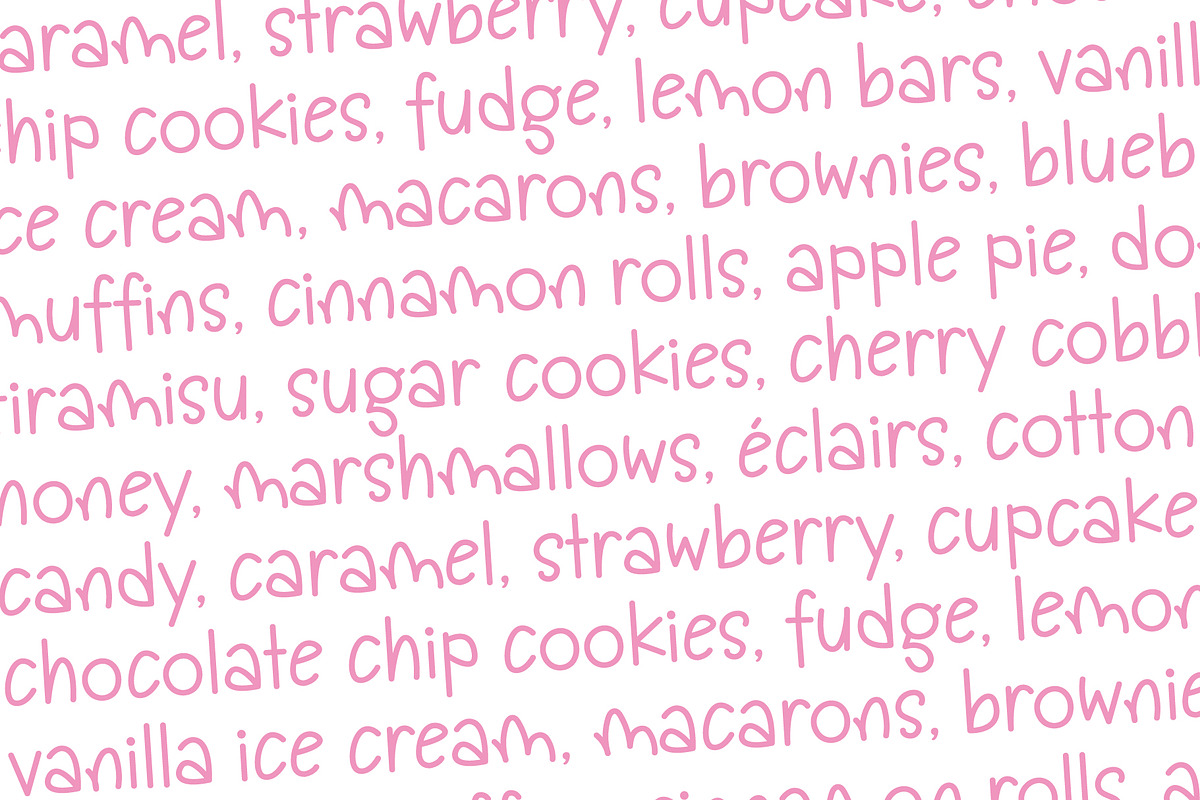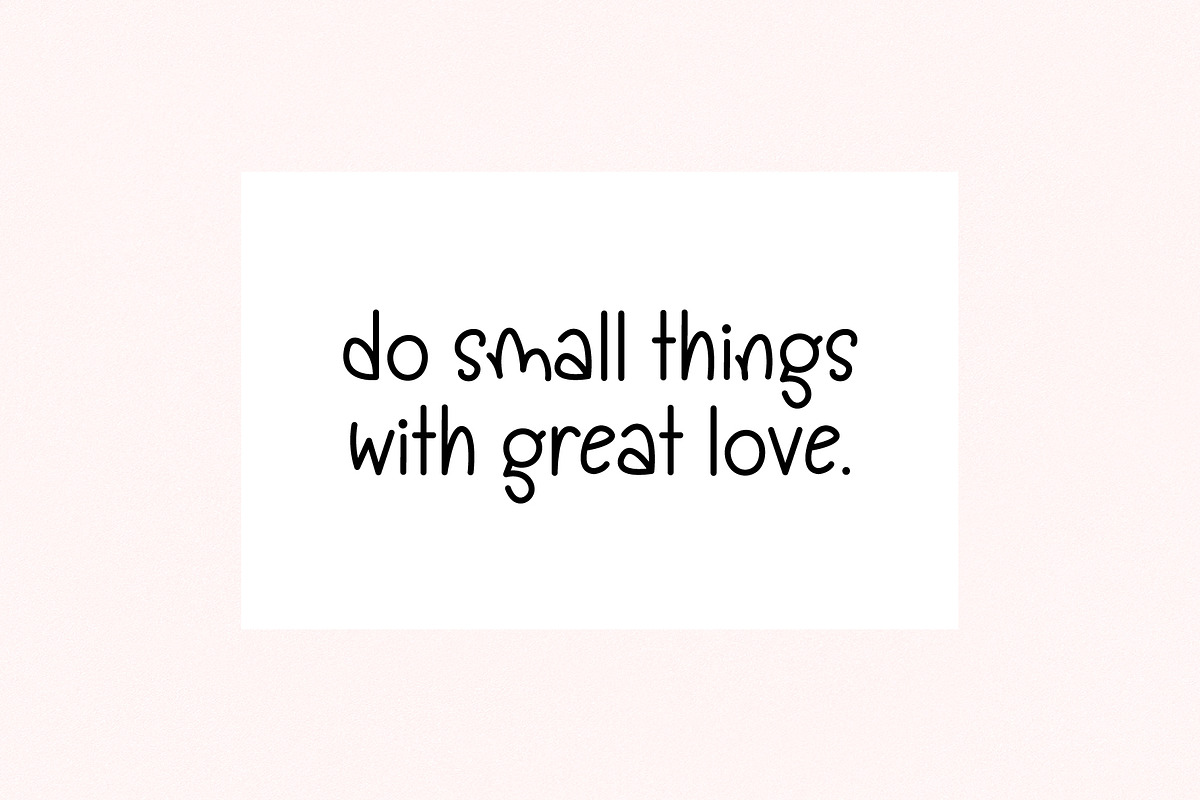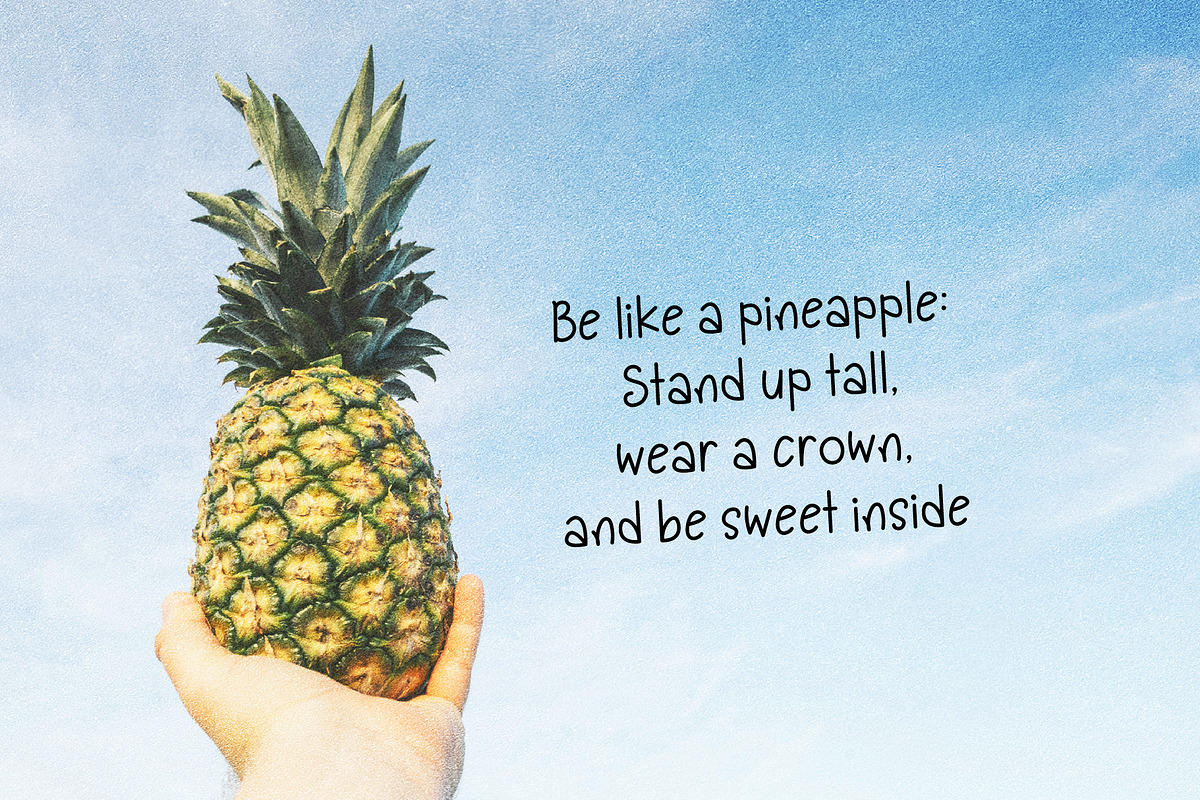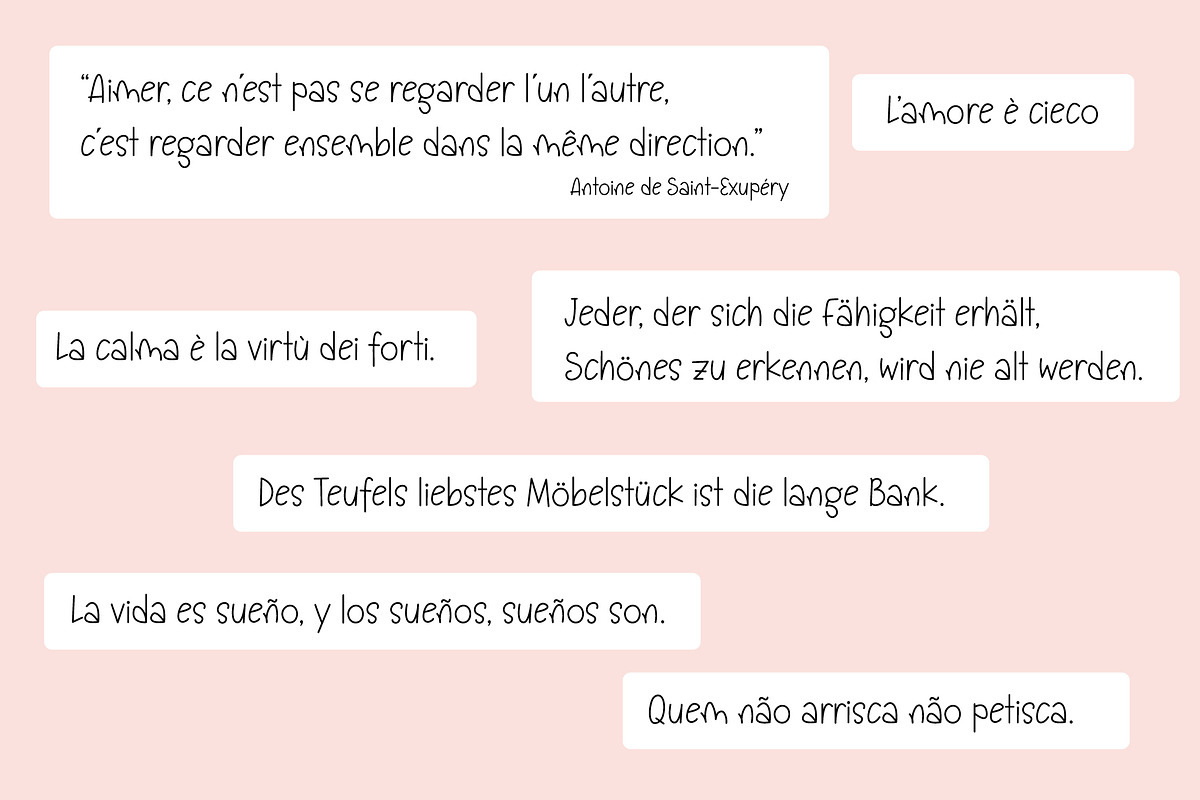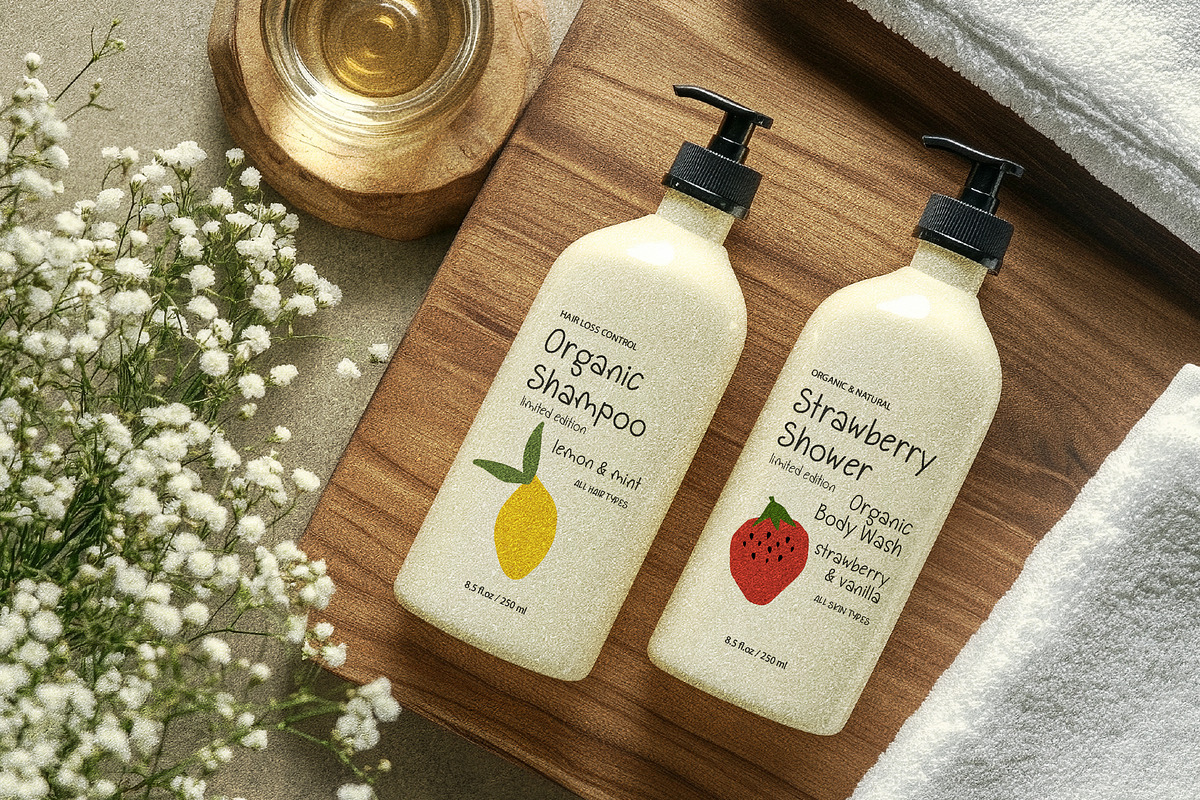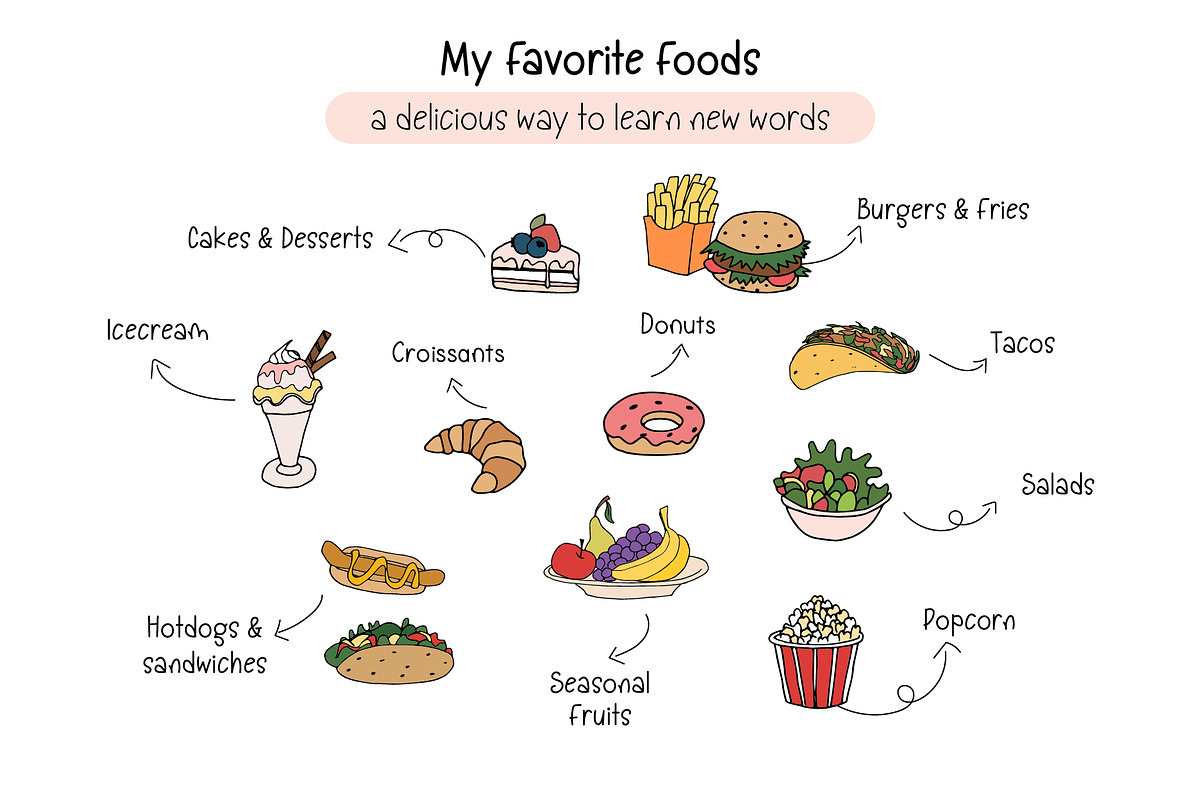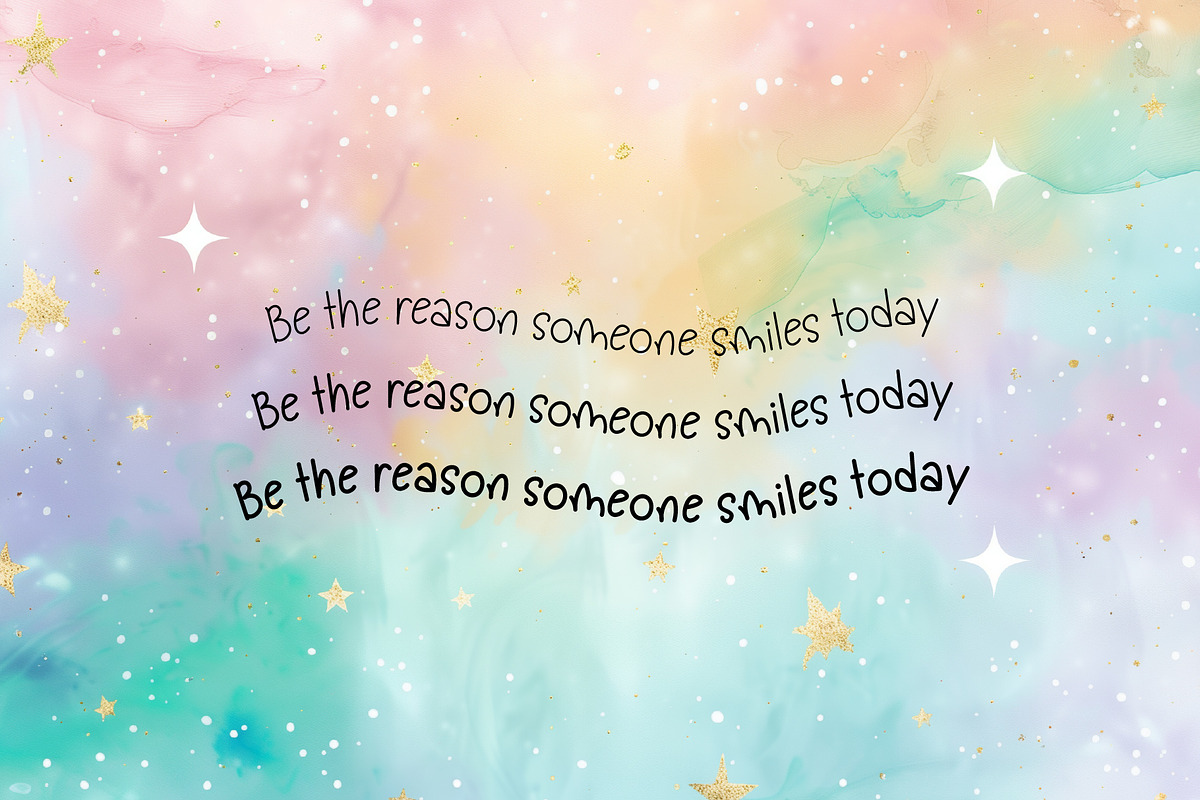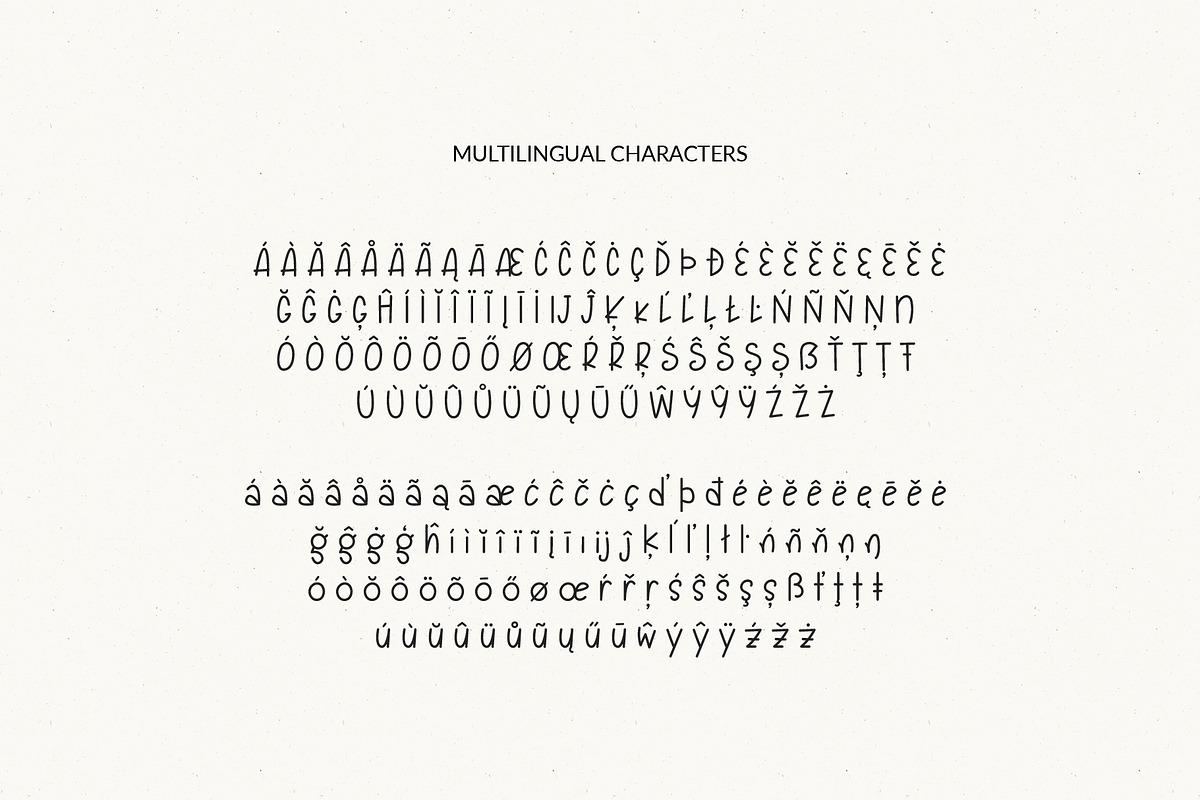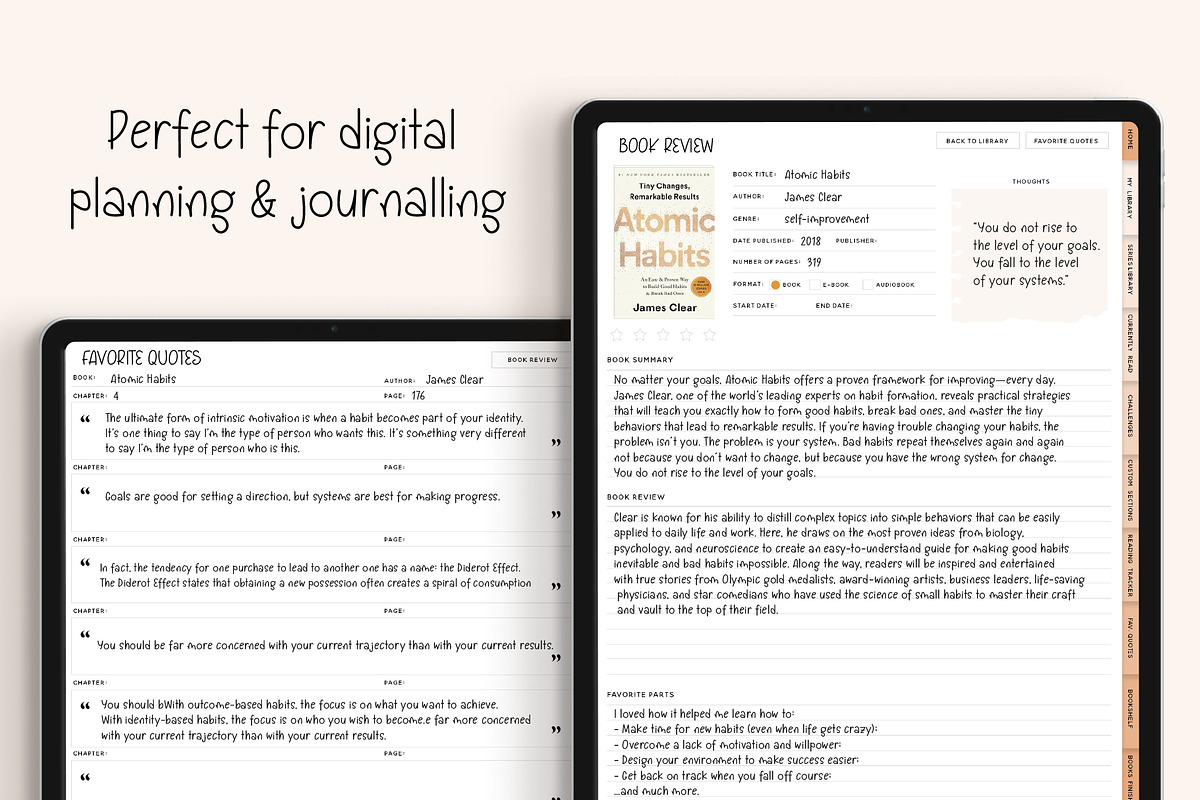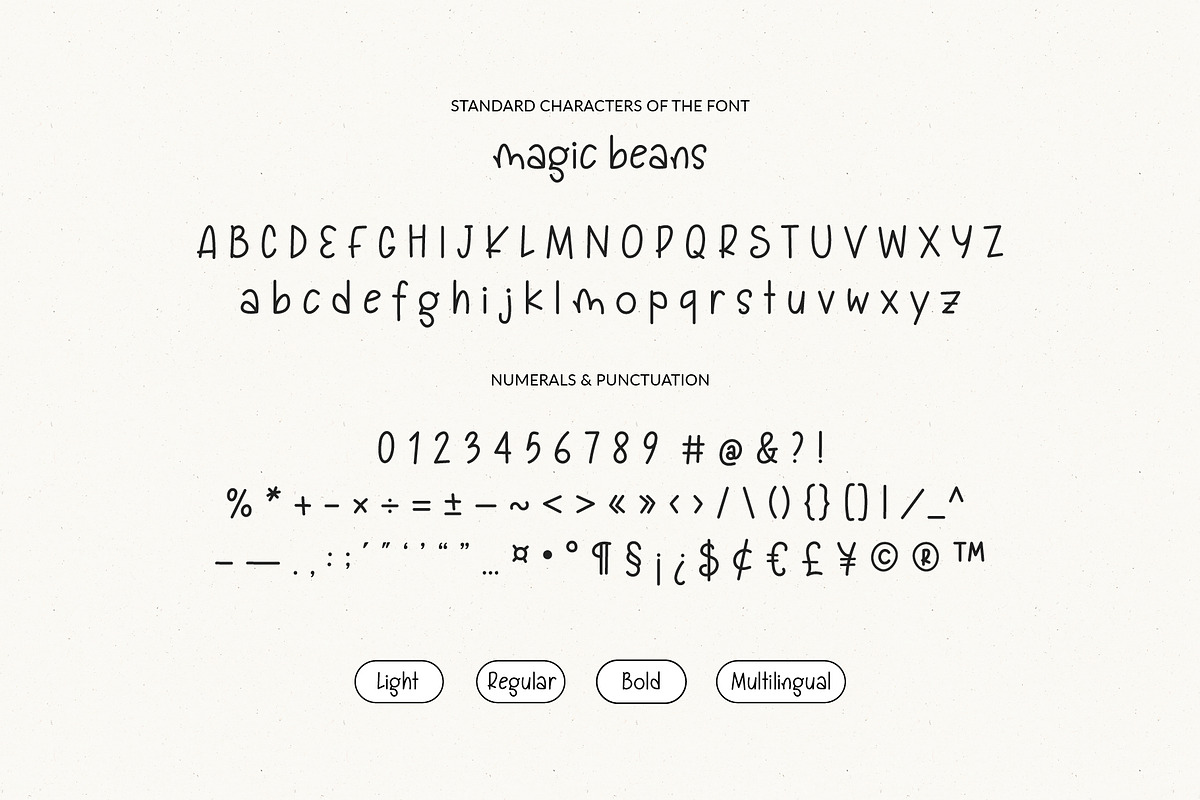
Magic Beans Quirky Handwriting Font
Say hello to Magic Beans, a quirky handwriting font that brings warmth and personality to your designs. It is great for craft projects, invitations, greeting cards, logos, branding, social media, printed goods or anything that requires cute handwritten lettering.
This versatile font comes in three weights—light, regular, and bold— and it has international characters.
FONT FEATURES
• Cute handwriting style
• Standard characters (lowercase, uppercase, numbers, punctuation)
• Multilingual characters: